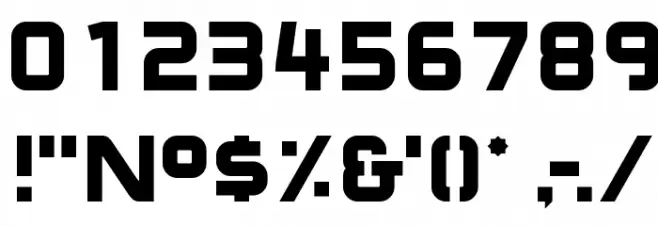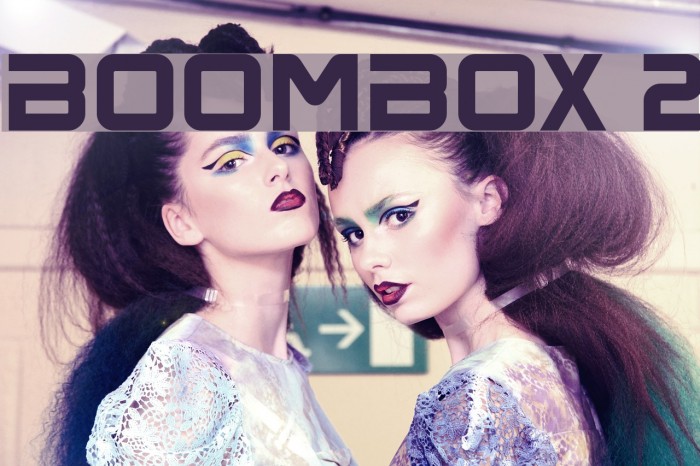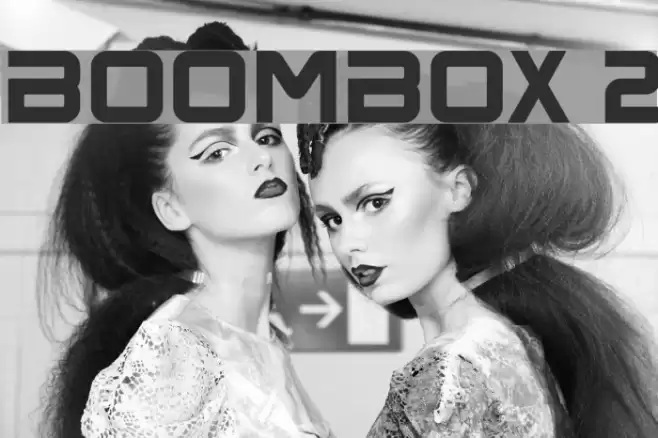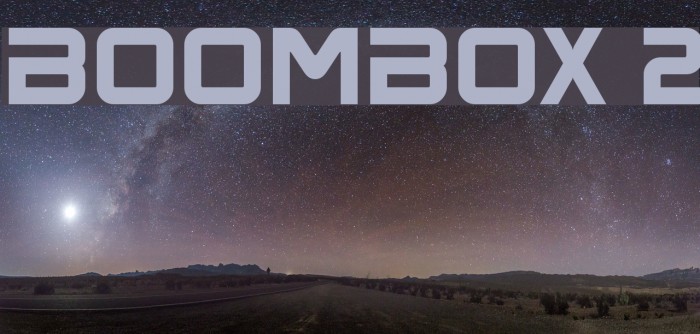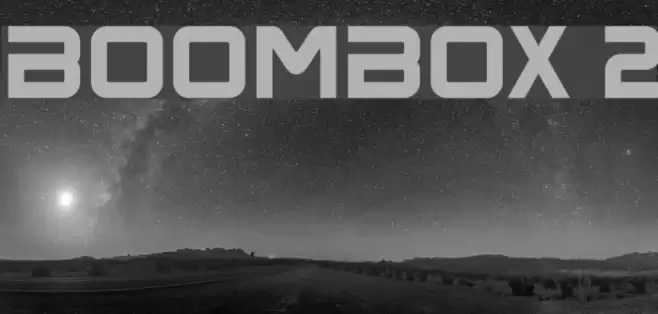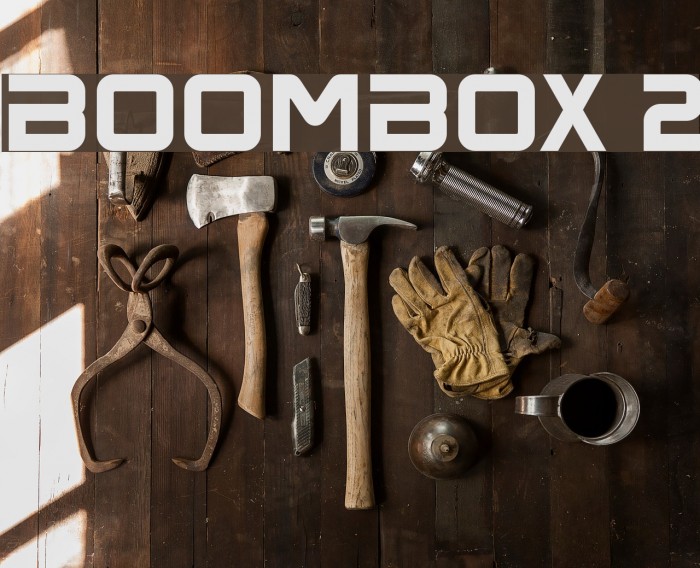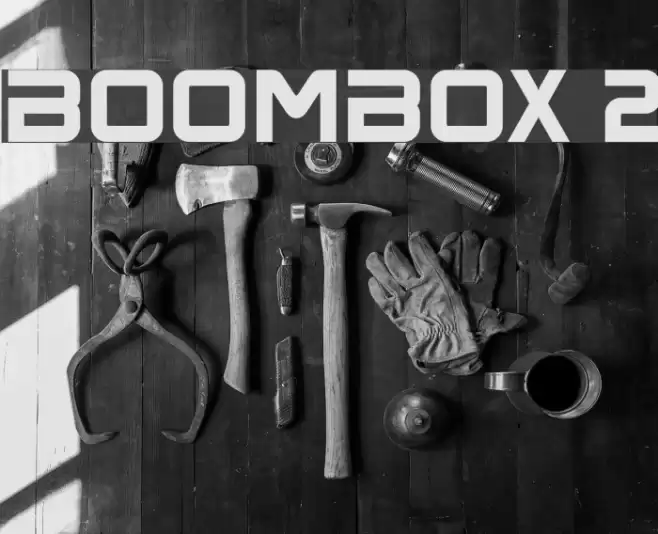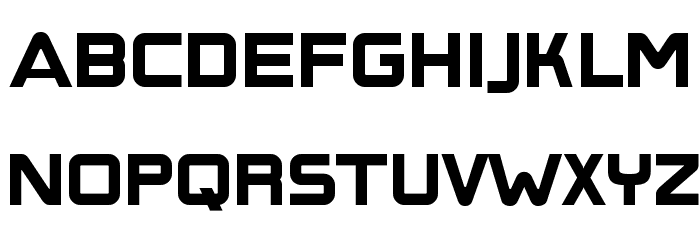
BoomBox 2 Font
BoomBox 2 Description
This font features a bold, geometric design with a modern and futuristic appeal. The uppercase letters are characterized by sharp angles and clean lines, creating a sense of strength and stability. The lowercase letters maintain the same geometric style, ensuring consistency throughout the typeface. Numbers and special characters are designed to match the boldness and angularity of the alphabet, making them highly legible and visually striking. The font's overall appearance is both sleek and assertive, suitable for projects that require a contemporary and impactful look.
| Proposed Projects | Ideal for branding, headlines, posters, and digital media that require a strong, modern aesthetic. |